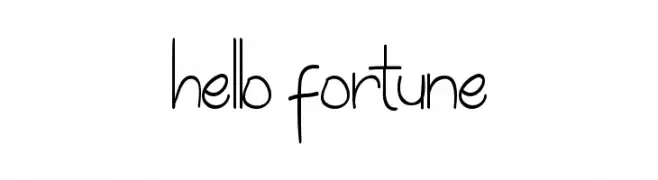
A flowing, cursive script font with elegant loops and swashes.
A bold, handwritten font with a playful and energetic style.
A lively and elegant script font with flowing, interconnected strokes.
A flowing, cursive font with elegant, sweeping lines and artistic flair.
A flowing, cursive font with elegant, sweeping strokes and an italic slant.
A playful, hand-drawn font with rounded edges and a whimsical style.
A playful and festive script font with elegant loops and swirls.
A playful, handwritten font with a bold, whimsical style.
A flowing cursive script font with elegant, interconnected strokes.
Cartoon mascot font with bold outlines and playful characters.
A decorative font featuring detailed helicopter silhouettes for each character.
A playful, bold script font with a handwritten feel.
A bold, dripping font with a playful and edgy aesthetic.
A playful, bold handwritten font with thick strokes and a casual style.
A bold, dynamic script font with elegant, flowing letterforms.
A playful and elegant script font with a handwritten style.
A charming, elegant handwritten font with fluid, cursive letterforms.
A bold, geometric font with a distinct outline style, perfect for modern and impactful designs.
A bold, geometric outline font with a modern, industrial style.
A playful, casual font blending script and sans-serif styles.
Playful handwritten font with a whimsical style.
A playful, hand-drawn font with tall, narrow letters and a whimsical style.
An elegant script font with flowing, interconnected letters and a classic calligraphic style.
A modern, cursive font with elegant, flowing lines and a handwritten feel.
A playful, bold sans-serif font with a rustic charm and rounded, condensed characters.
A charming script font with flowing, connected letters and elegant flourishes.
A modern, handwritten font with a fluid and elegant style.
A bold, playful font with rounded, thick strokes and a whimsical style.
A bold, italic font with a playful and dynamic style.
A lively and expressive script font with fluid, cursive strokes and varying thickness.